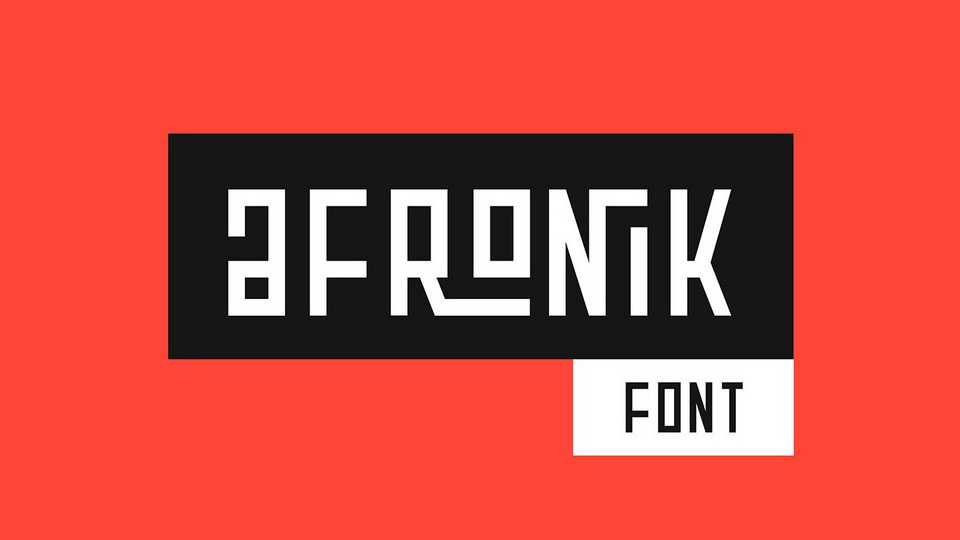
Download Afronik typeface, an African themed display font family. Afronik is created strictly using straight lines and edges with the exception of the Soft version of the font.
Designer: Tapiwanashe Sebastian Garikayi